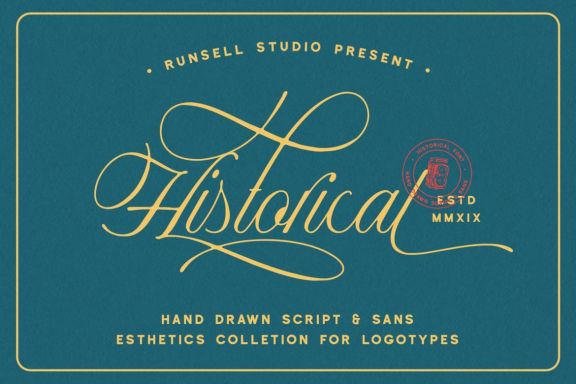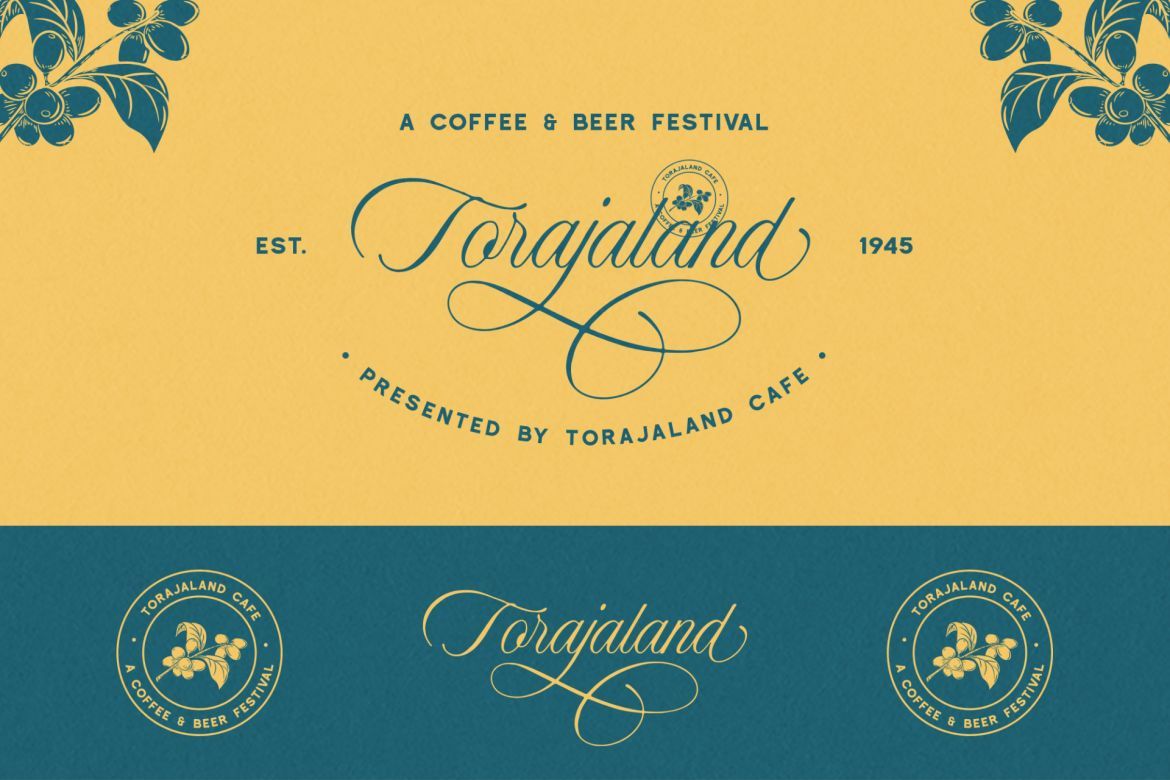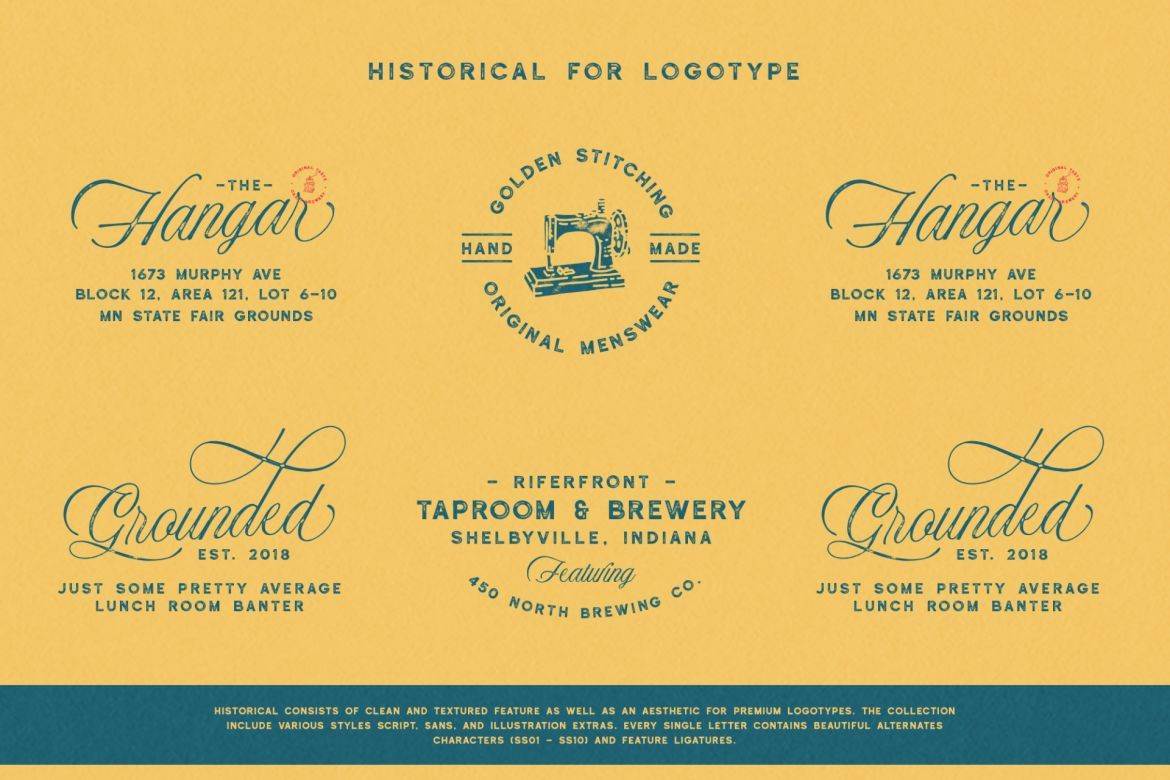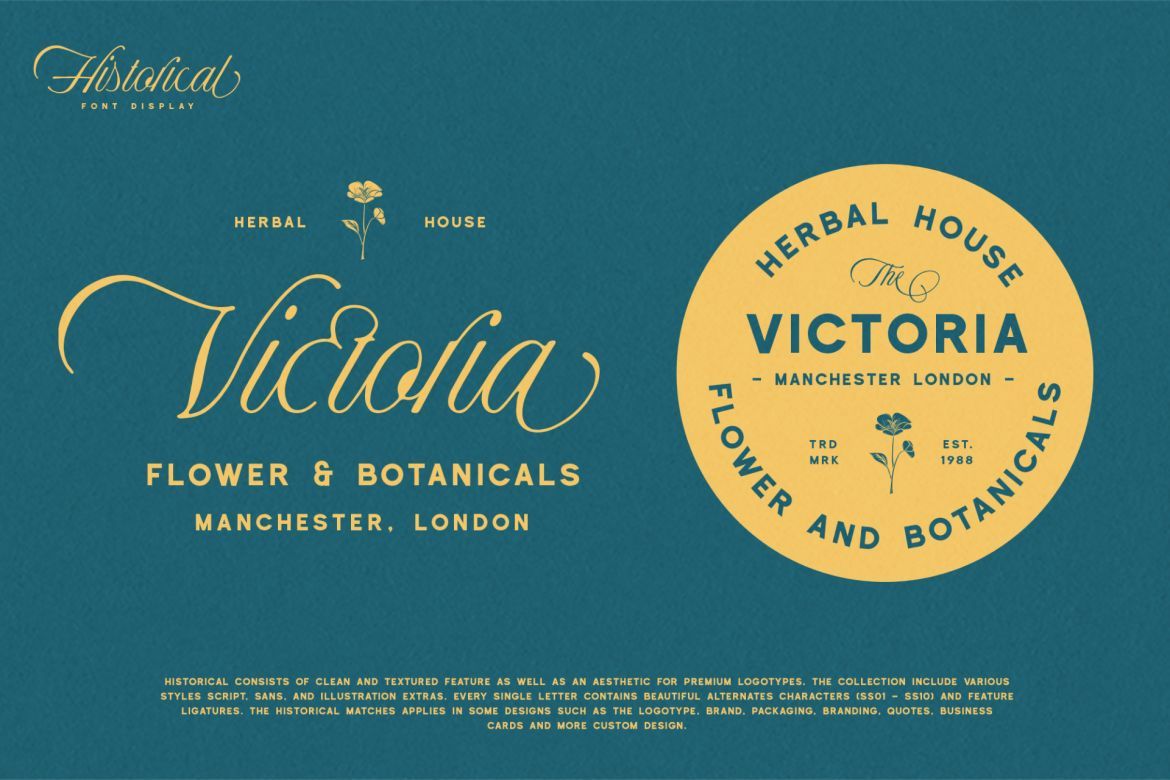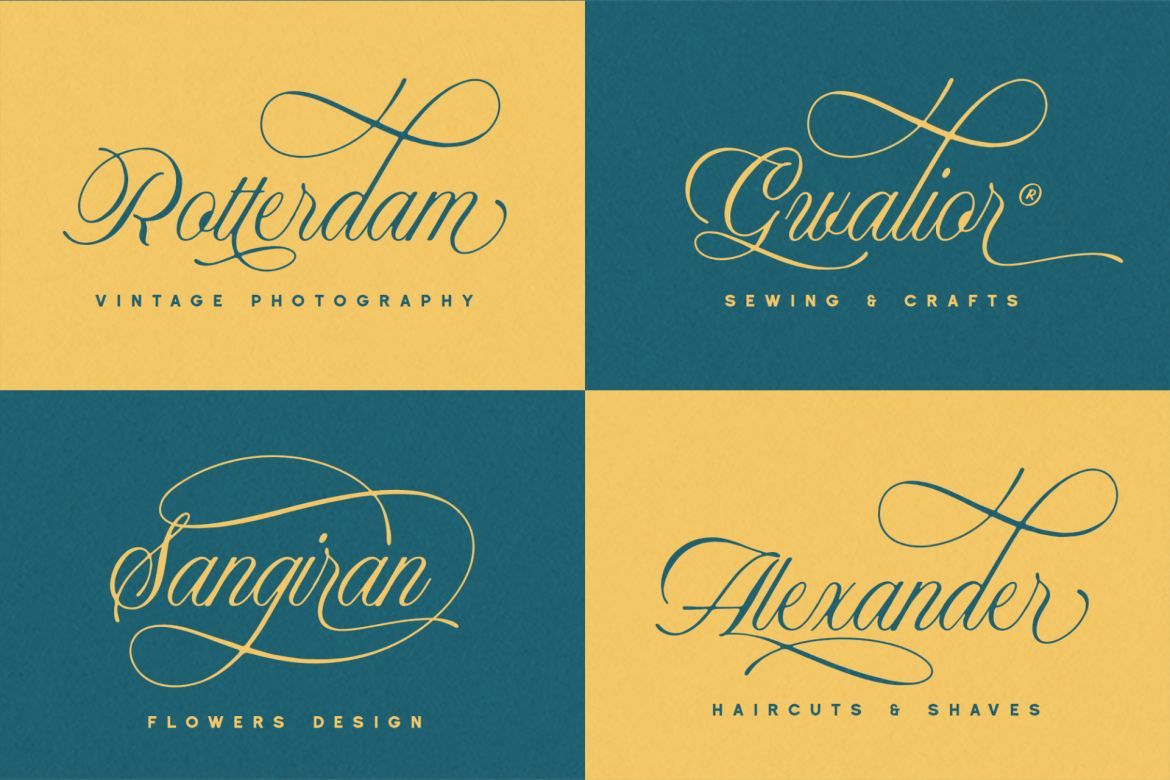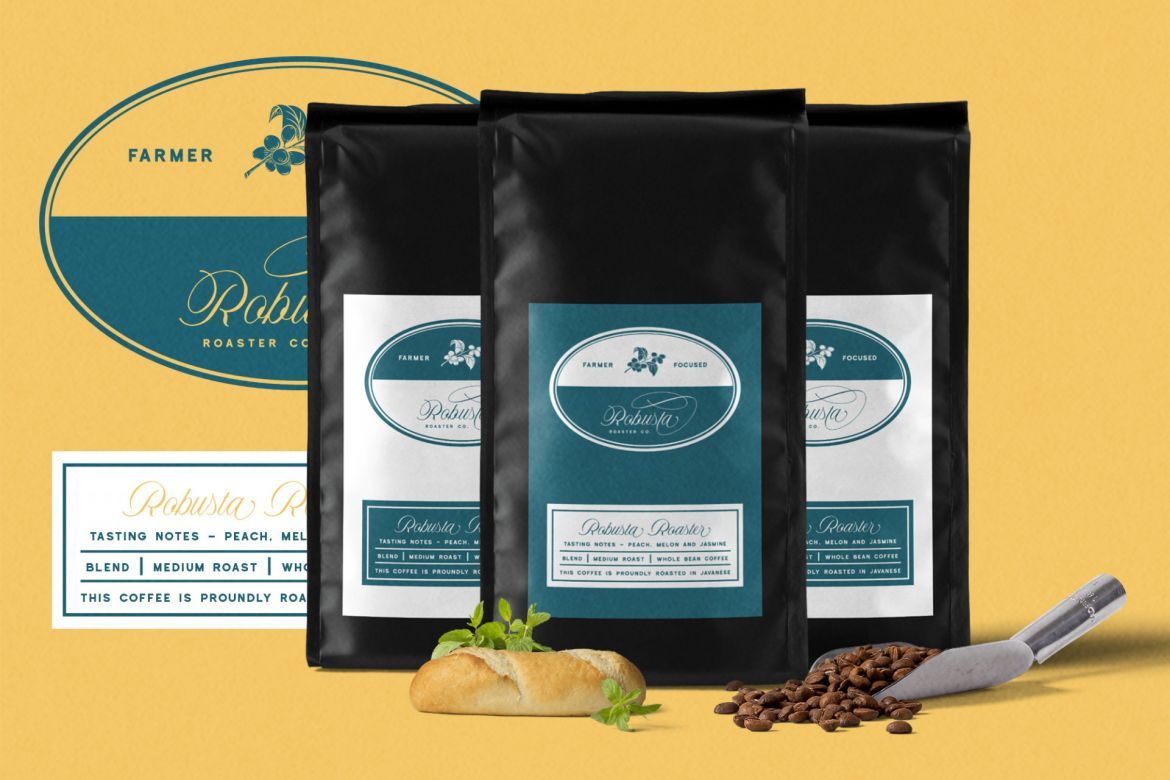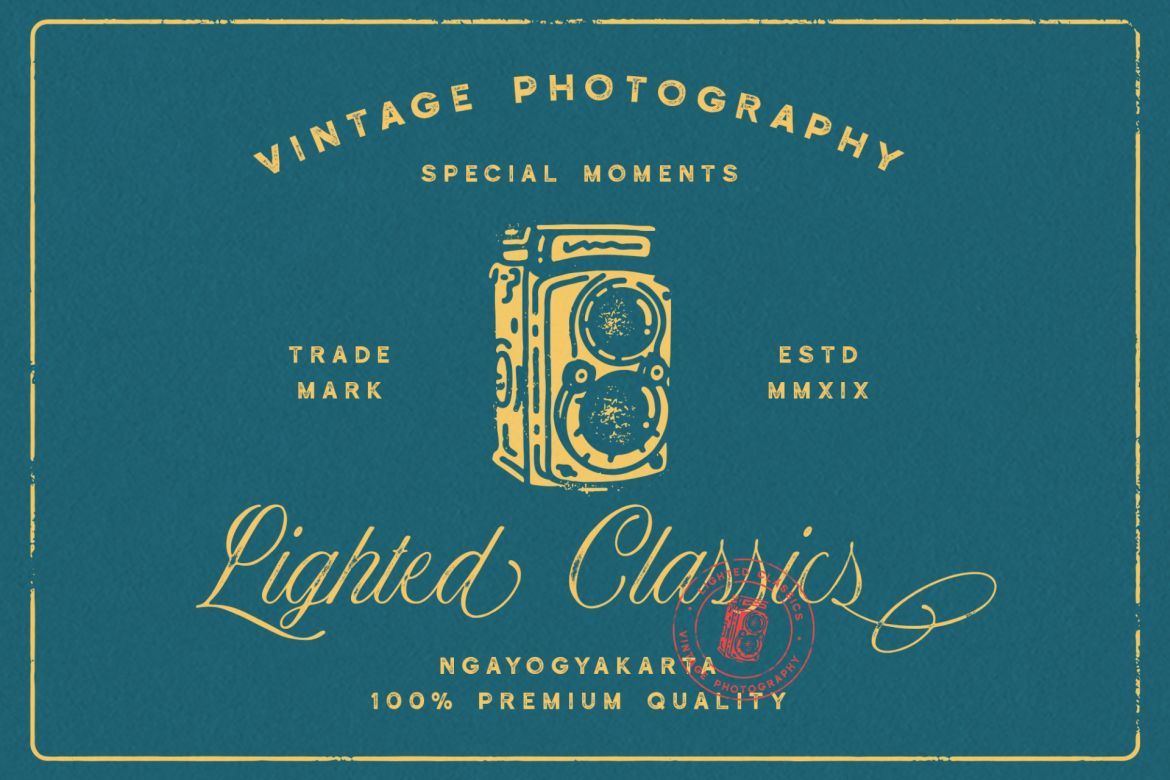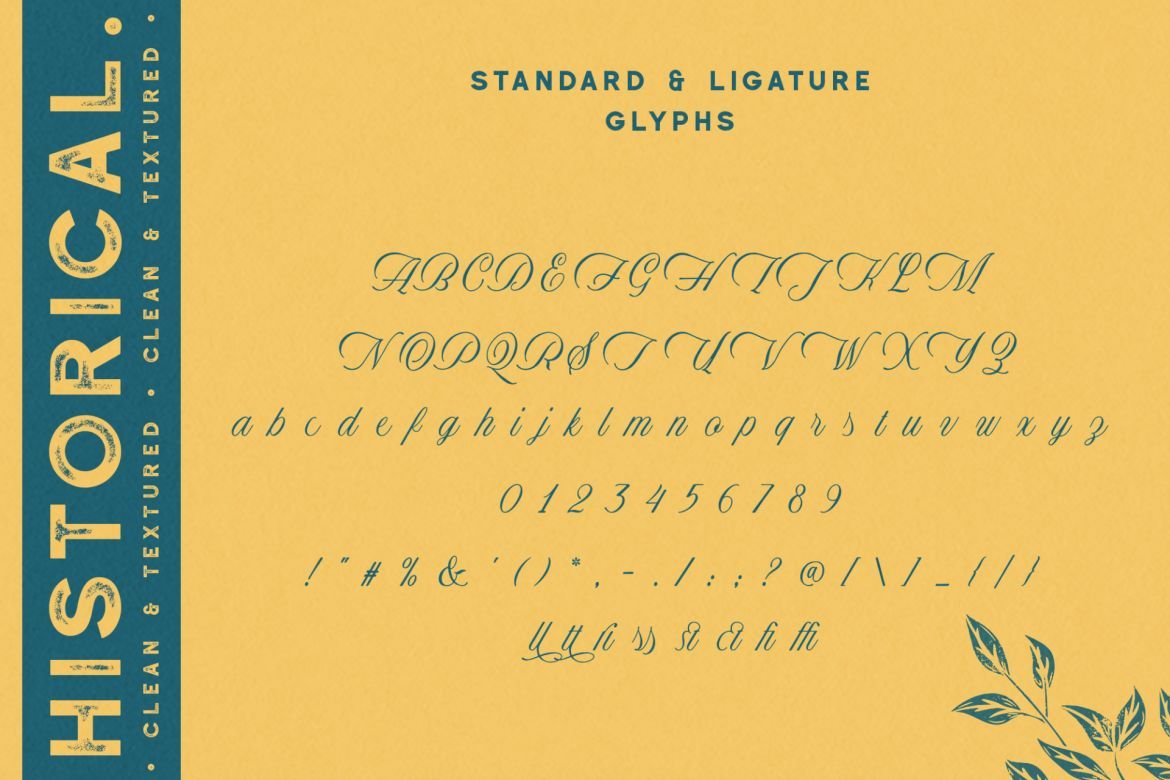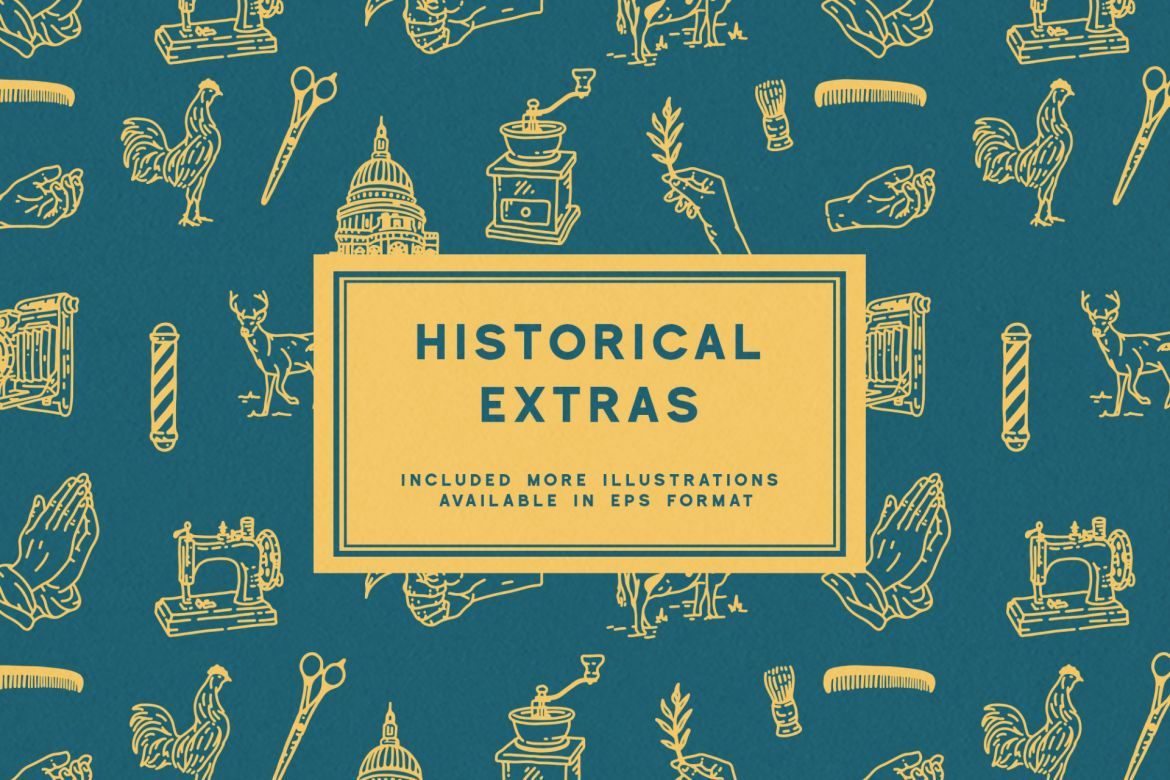
Historical - Handdrawn Font
Introducing Historical - Hand Drawn Script & Sans
Historical consists of clean and textured feature as well as an aesthetic for premium logotypes. The collection include various styles script, sans, and illustration extras. Every single letter contains beautiful alternates characters (ss01 - ss10) and feature ligatures.
The Historical matches applies in some designs such as the logotype, brand, packaging, branding, quotes, business cards and more custom design. The features uppercase, lowercase, numeral, punctuation & symbol, ligatures, stylistic alternates, multilingual support, PUA encoded (fully accessible without additional design software).
• contains beautiful alternates characters (ss01 - ss10) and feature ligatures
• historical consists of clean and textured feature
• include various styles script, sans, and illustration extras
• multilingual support, pua encoded